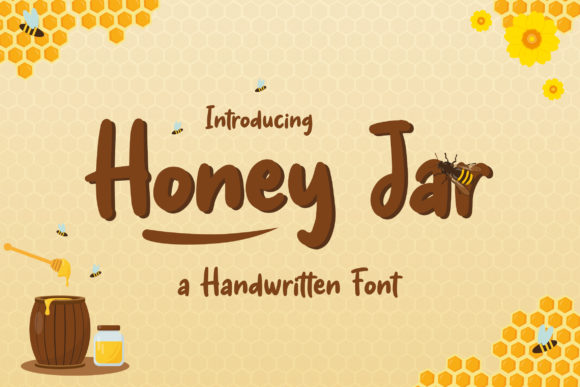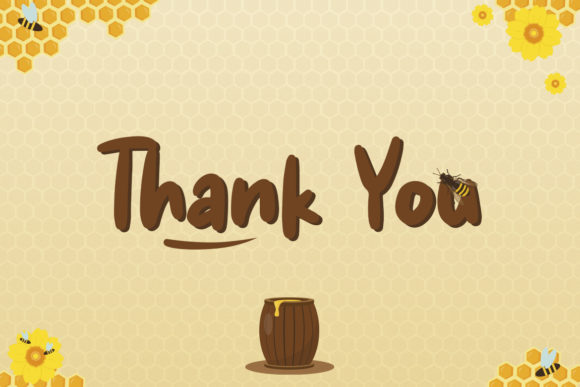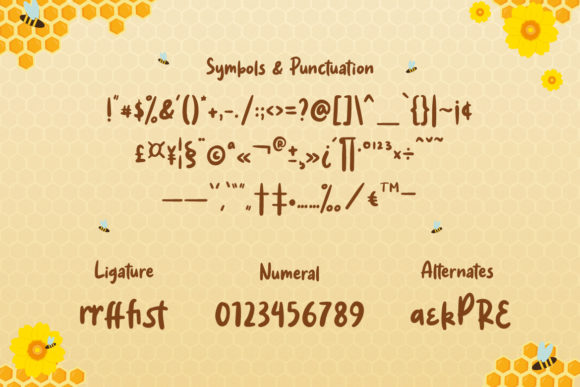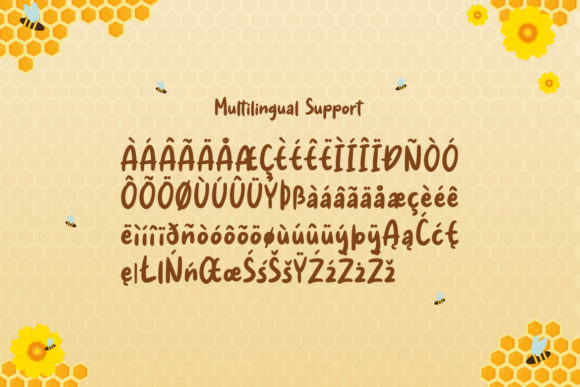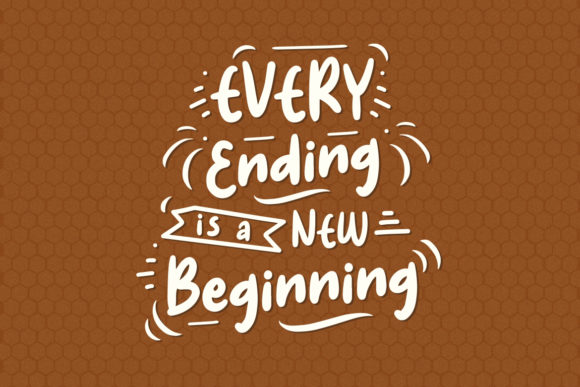
About Honey Jar Font
Honey Jar is a bold and modern script font that adds a touch of elegance and sophistication to your designs. With its carefully handcrafted letterforms, this font is designed to become a favorite among designers.
The bold and strong appearance of Honey Jar makes it stand out and grab attention. Whether used on busy backgrounds or as a standalone headline, this font commands the viewer’s attention and adds a sense of style and professionalism to your designs.
The modern and sleek design of Honey Jar makes it versatile and suitable for a wide range of projects. Whether you’re designing logos, headlines, branding materials, packaging, posters, or any other type of visual communication, this font will elevate your design and make it look outstanding.
The smooth and flowing letterforms of Honey Jar create a harmonious and balanced look. Each letter is carefully crafted to maintain legibility while adding a touch of artistic flair. The result is a font that is both aesthetically pleasing and easy to read.
One of the great features of Honey Jar is its versatility. It works well in both digital and print mediums, ensuring that your designs will look exceptional across various platforms. Its bold and modern style makes it suitable for both contemporary and classic design aesthetics.
Whether you’re working on a branding project, a website design, an advertising campaign, or any other creative endeavor, Honey Jar will provide you with a font that is both visually appealing and versatile.
In summary, Honey Jar is a bold and modern script font that adds elegance and sophistication to your designs. Its carefully handcrafted letterforms and versatile style make it suitable for a wide range of projects. Use Honey Jar to create outstanding designs that grab attention and make a lasting impression.